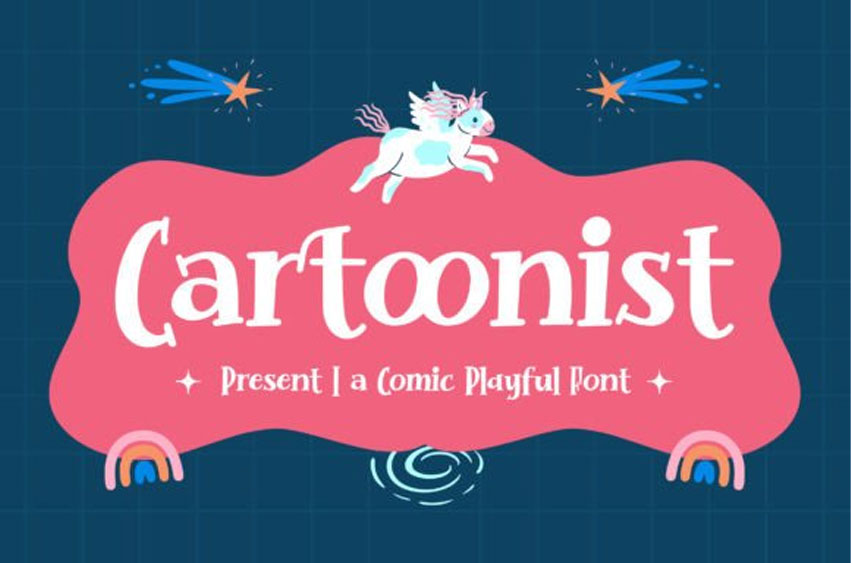
Cartoonist Font
Cartoonist Font is a playful comic font with an adorable style.
Get inspired by its unique charm, and turn any design project into a true standout!